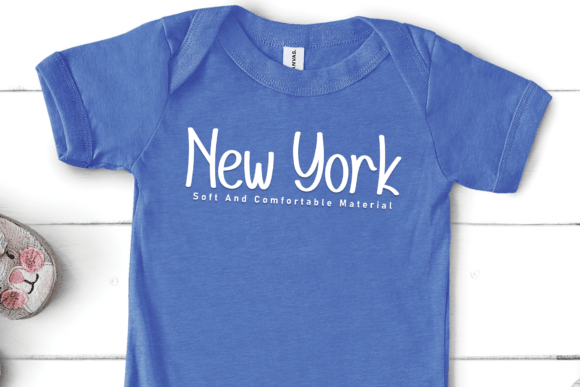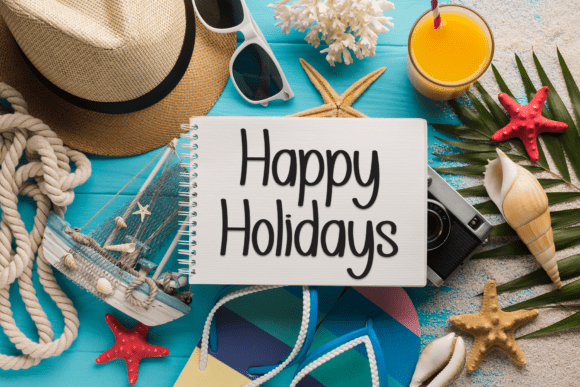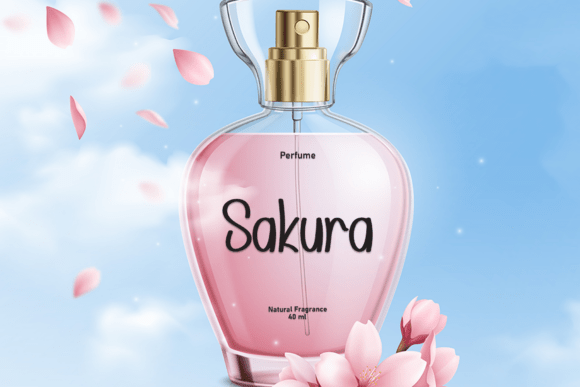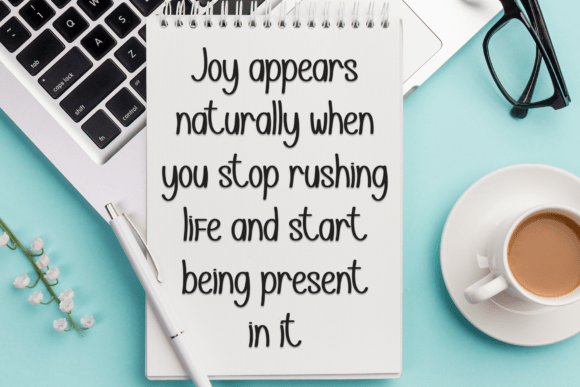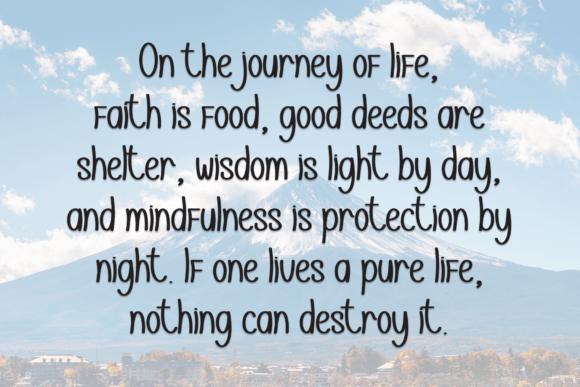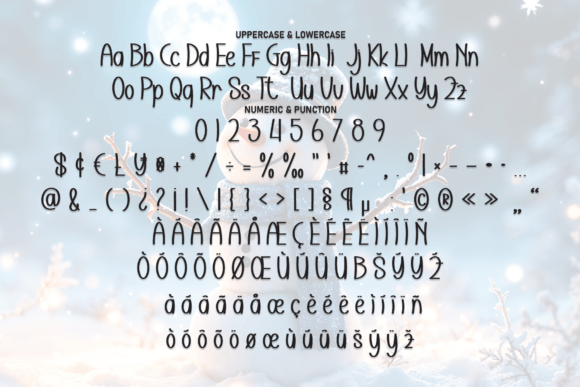
Introduction to Magic Snowman Font Font
Fonts play a crucial role in design, and the Magic Snowman Font font is a typeface that brings both character and versatility to any project. Whether you’re working on a branding project, a website, or a print design, the Magic Snowman Font font offers a unique style that can elevate your work.
Presenting a captivating, handmade typeface that expertly balances merriment and elegance – a delightful fusion of joy and refinement.
This font injects the treasured emotion of wedding announcements and festive missives with its charming nature It effortlessly embraces the playful allure of your design, adding a hint of extra enchantment.
Key Features of Magic Snowman Font Font
Why Choose Magic Snowman Font Font?
The Magic Snowman Font font is more than just a typeface – it’s a design tool that helps you communicate your message with style and clarity. Its unique character set and versatile design make it suitable for a wide range of applications, from elegant invitations to bold headlines.
With its carefully crafted letterforms and balanced proportions, the Magic Snowman Font font ensures readability and visual appeal across all mediums.
What makes Magic Snowman Font font special?
The Magic Snowman Font font stands out with its unique design, exceptional readability, and versatility across various design applications.